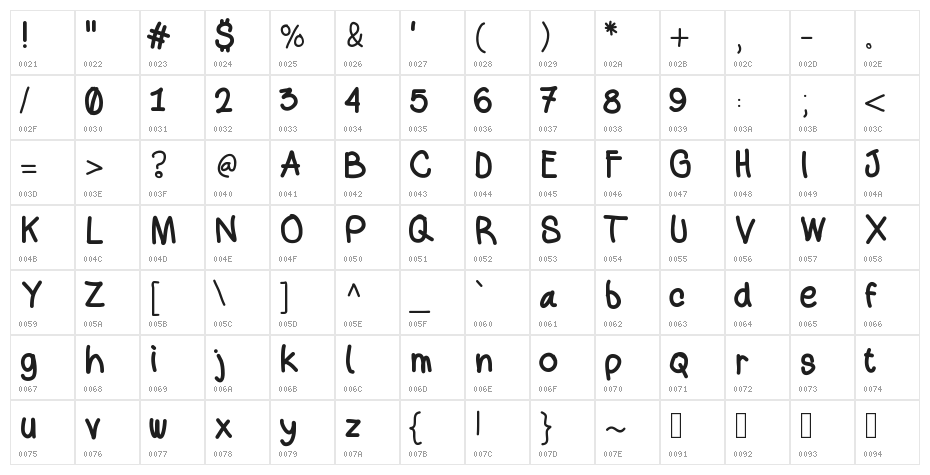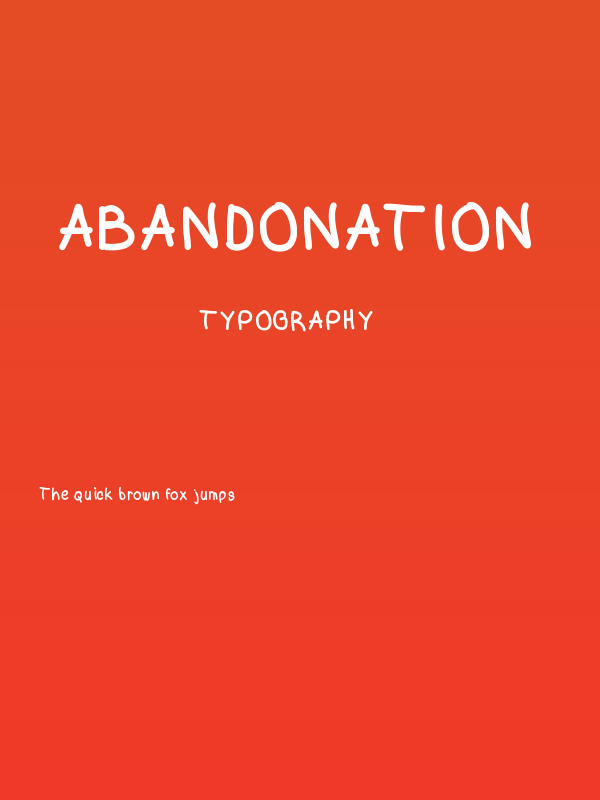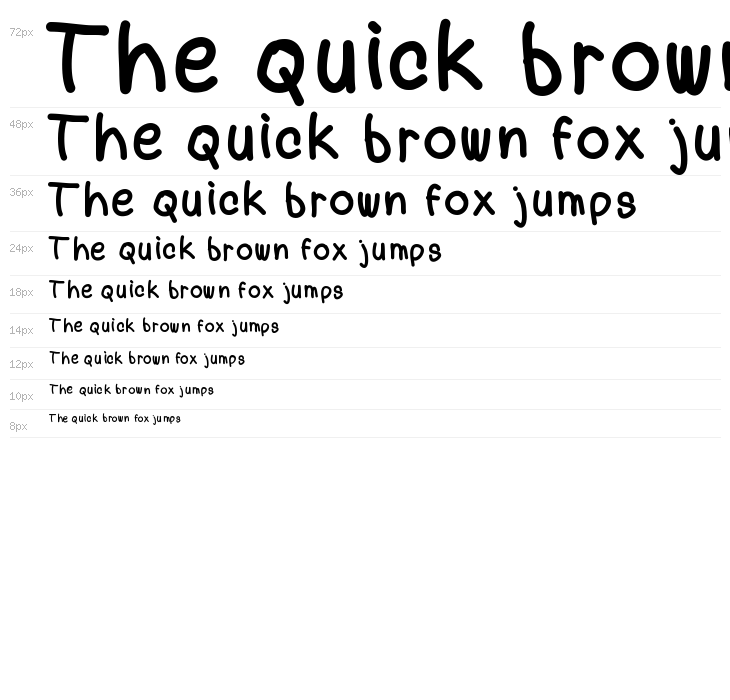
Abandonation Font
Abandonation Description
This playful and whimsical font features rounded, hand-drawn characters that exude a casual and friendly vibe. The letters are slightly irregular, adding to the charm and informal nature of the typeface. It includes both uppercase and lowercase alphabets, numerals, and a variety of special characters. The strokes are consistent in weight, providing a uniform appearance across all characters. This font is ideal for projects that require a personal touch, such as children's books, greeting cards, or informal invitations. Its approachable style makes it suitable for conveying warmth and friendliness.
| Use Case | Headlines, Informal text, Branding |
| Proposed Projects | Children's books, greeting cards, informal invitations, playful branding. |